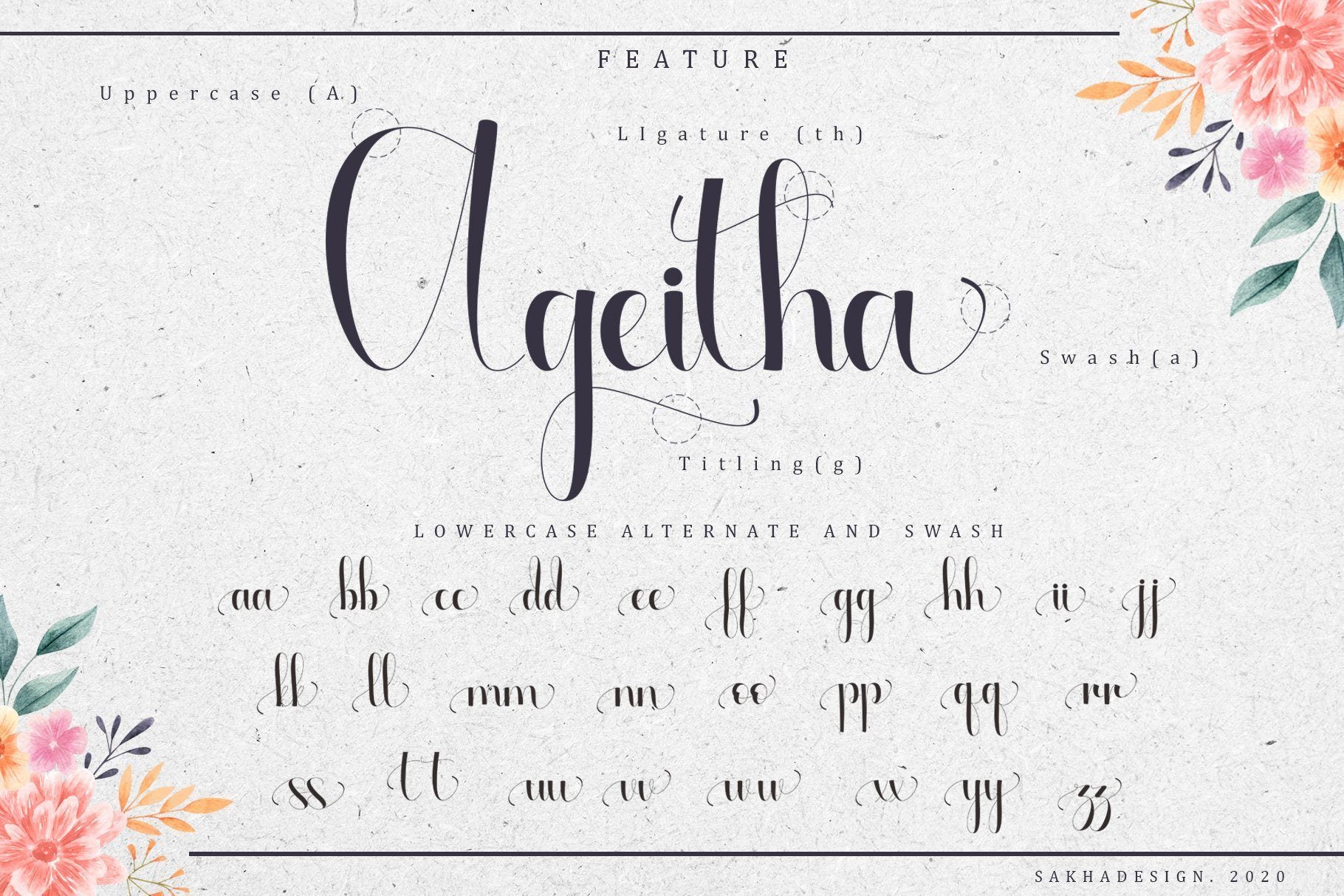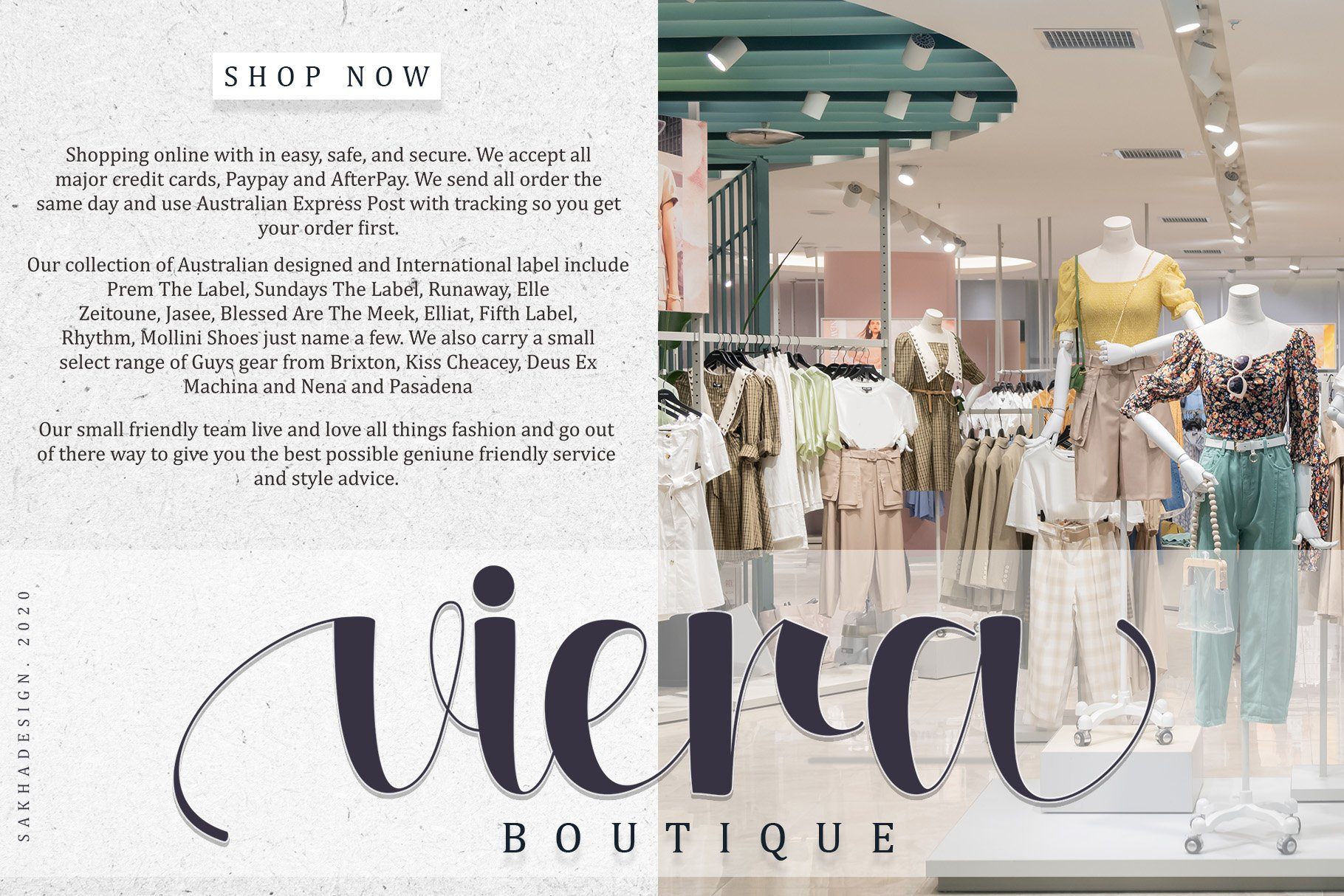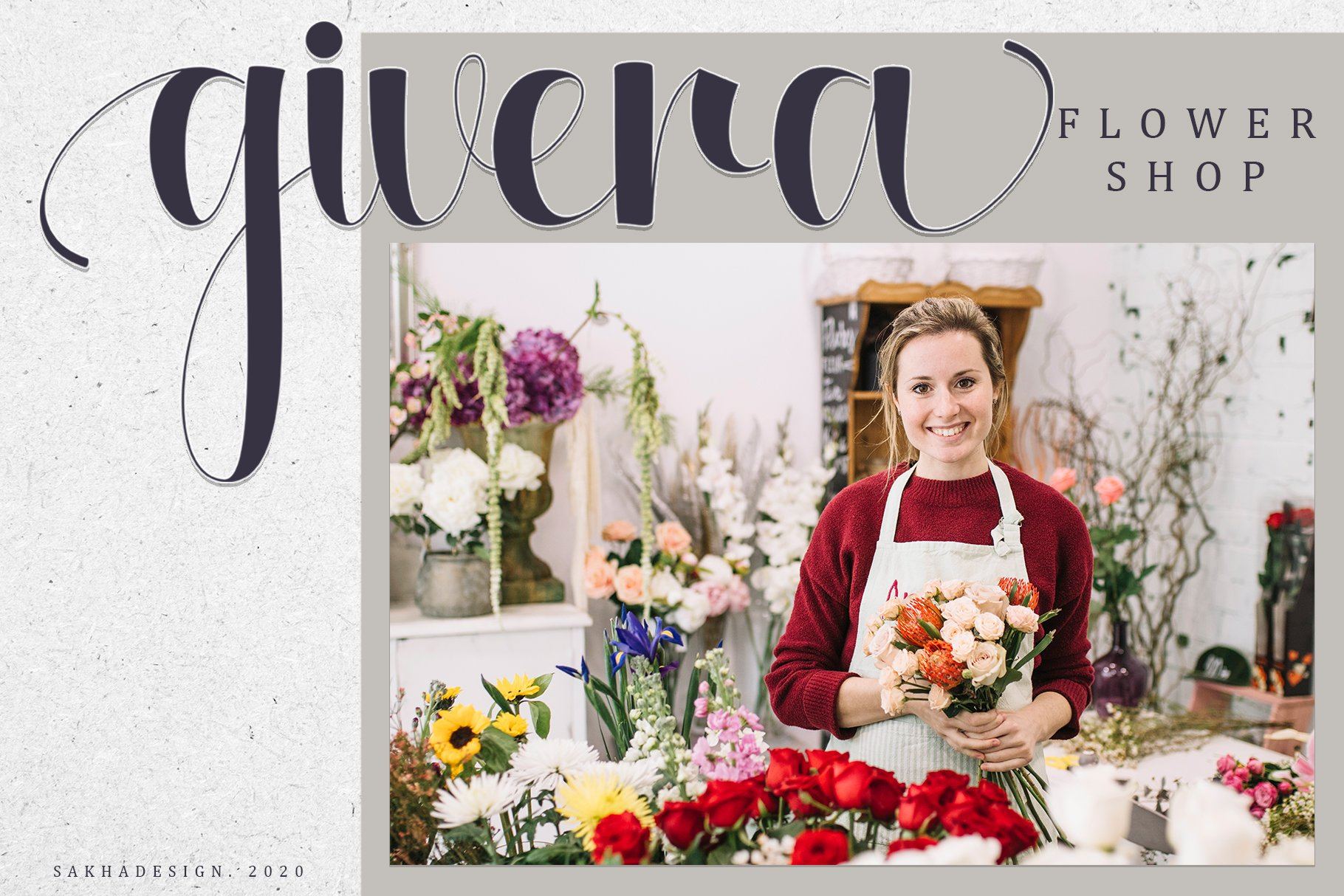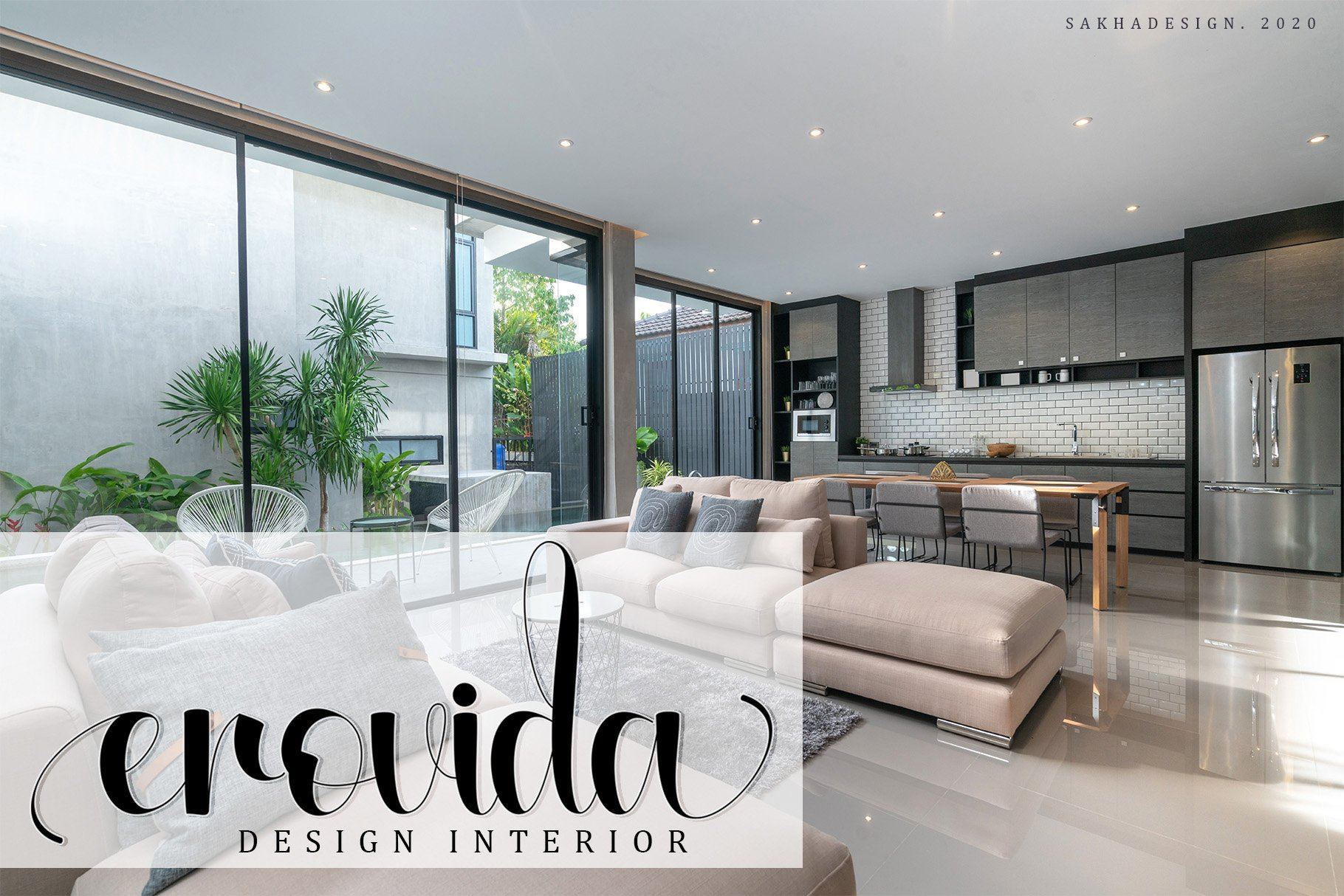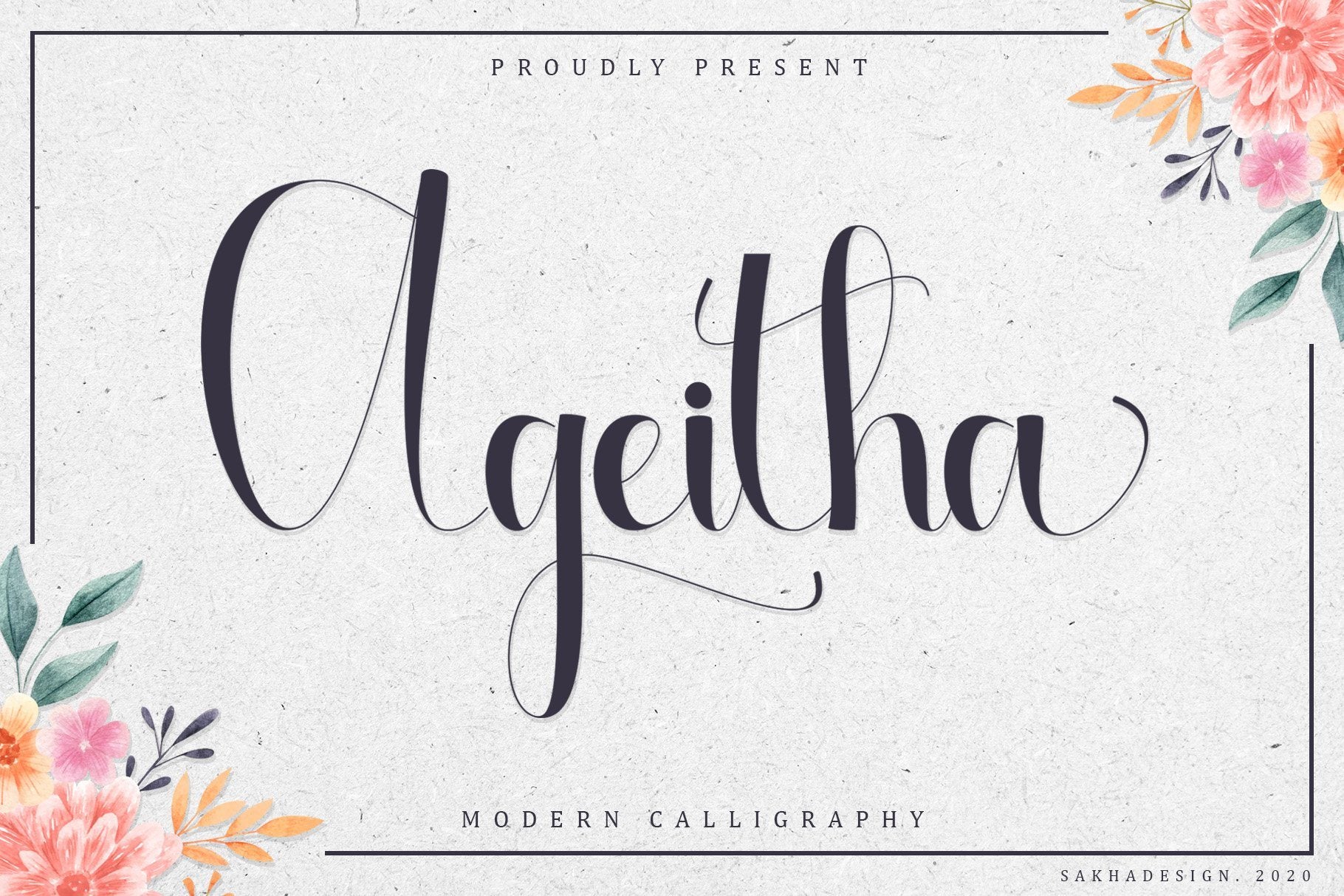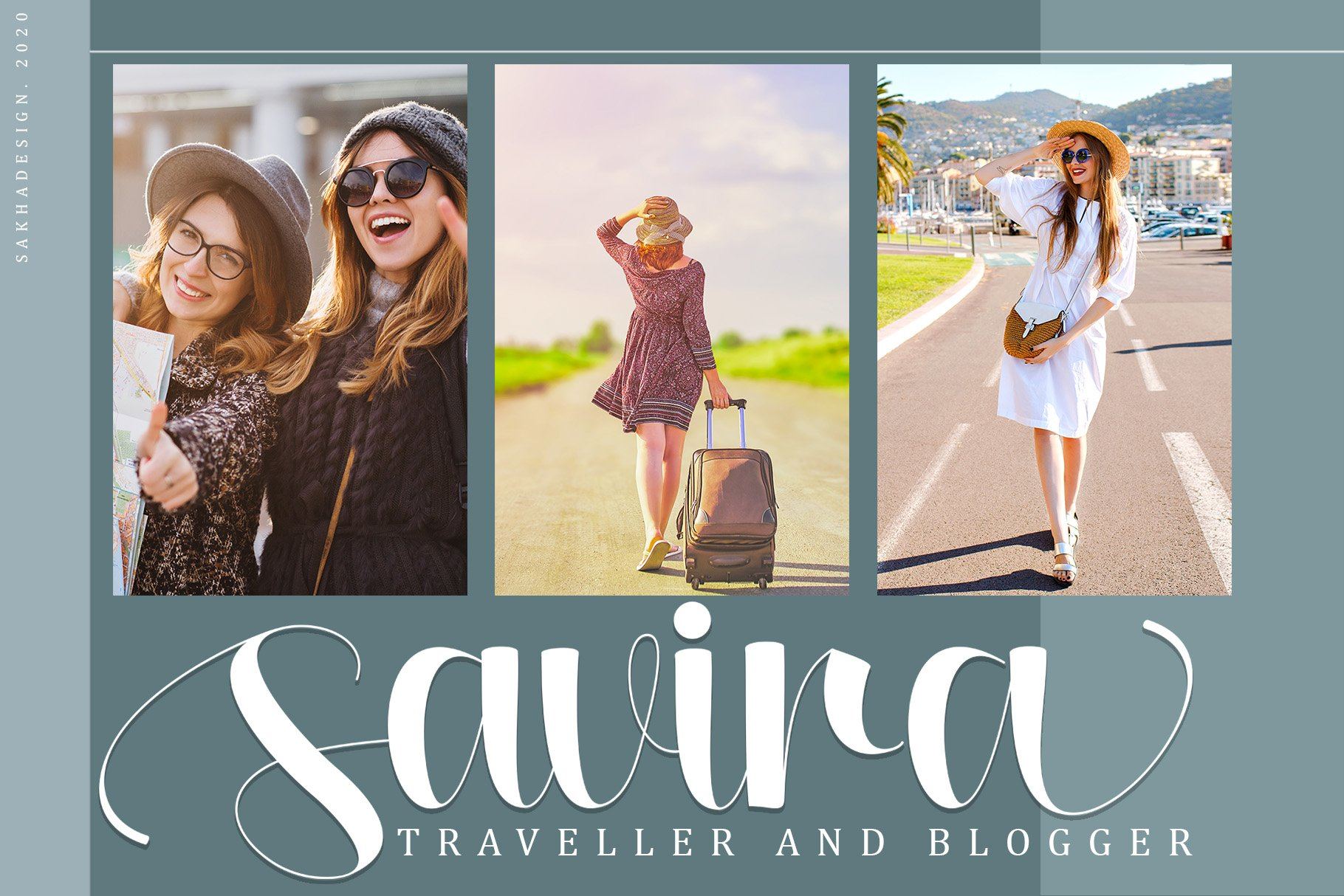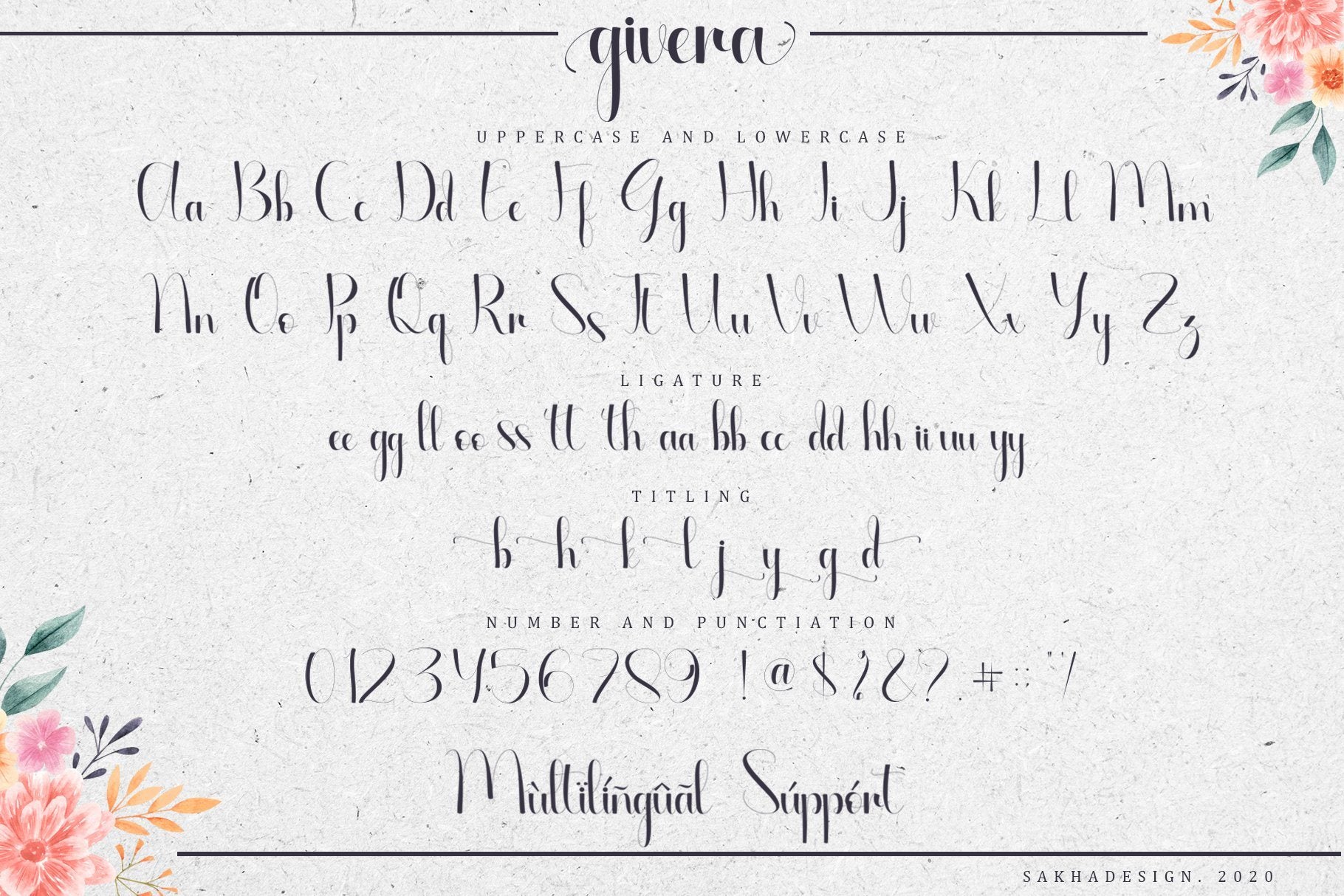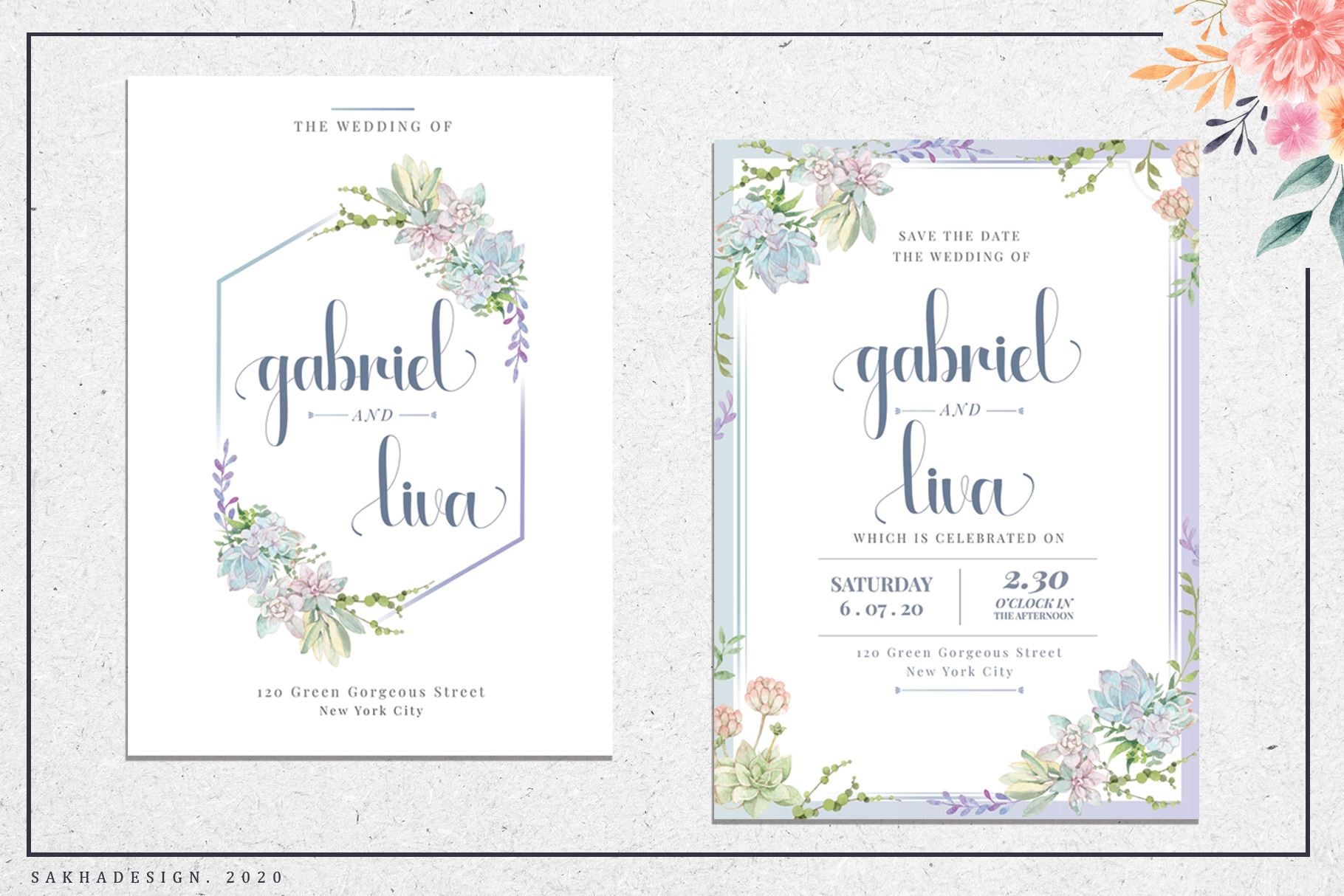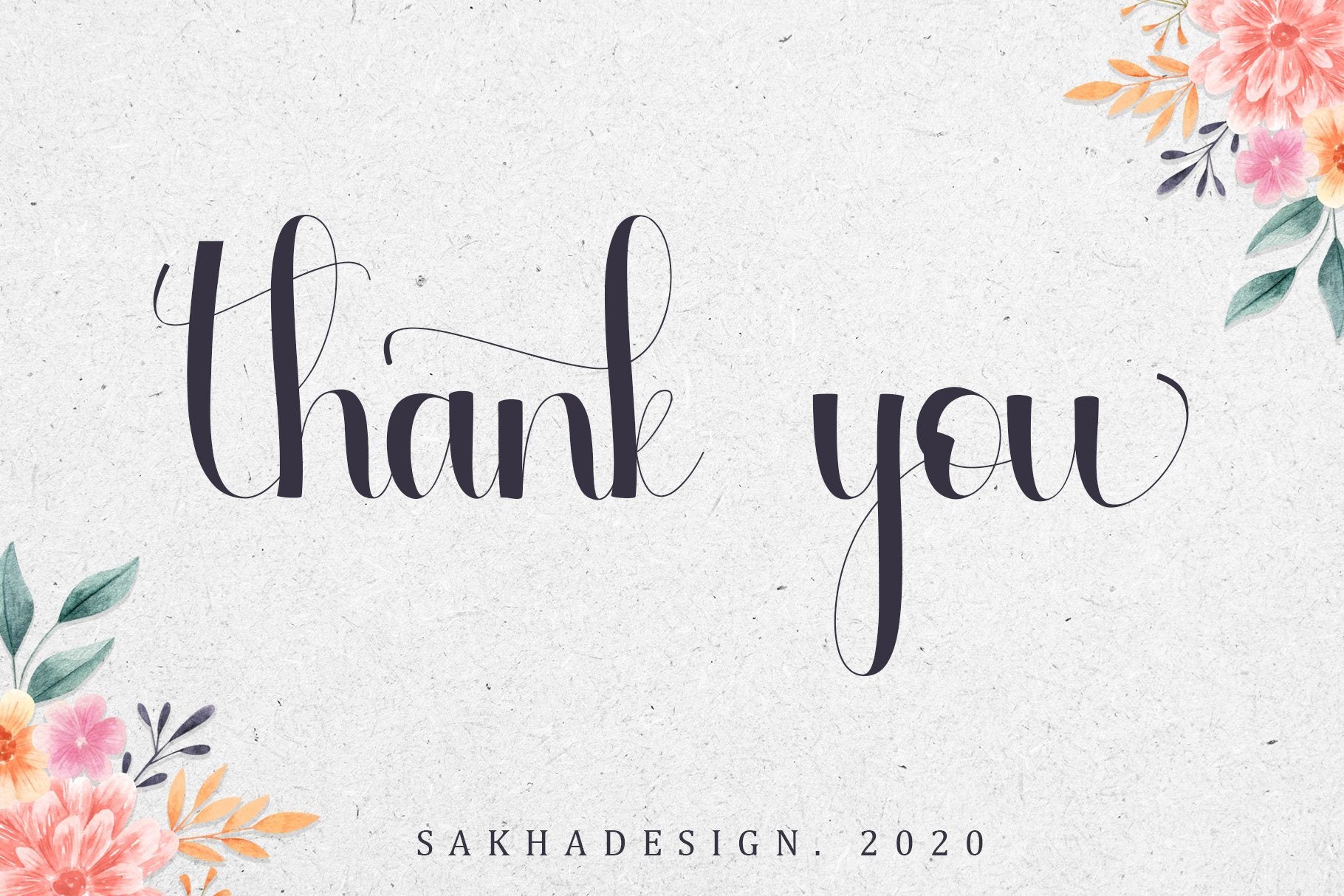
HomeScript FontsAgeitha Script Fonts Ageitha FacebookXPinterestWhatsApp 1 of 9 ... ... ... ... ... ... ... ... ... About Ageitha is a modern and luxurious handwritten font. Elegant and stylish, this font will become your top choice in no time. This font is PUA encoded which means you can access all of the glyphs and swashes with ease! DOWNLOAD NOW People also explored Snow Flakes Font Petchabury Font Valentines Font Cute Butterfly Black Torch Font Rdn Sans Font Talking Font Ramosaly Font Mighty Ducks Font 285 0 TagsAgeitha Previous articleThe BridgetaNext articleBaby live LEAVE A REPLY Cancel reply Comment: Please enter your comment! Name:* Please enter your name here Email:* You have entered an incorrect email address! Please enter your email address here Website: Save my name, email, and website in this browser for the next time I comment. Personal Use Free Angelitta Personal Use Free Read more about this font Valentines Day Personal Use Free Read more about this font Abberancy Personal Use Free Read more about this font Fifteenth Century Personal Use Free Read more about this font BLOG Free Fonts Risk: Why Free Fonts Can Be Dangerous for Designers Free Fonts Risk: Why Free Fonts Can Be Dangerous for Designers Using free fonts is a common practice in web and graphic design. However, the... Best Fonts for YouTube Videos: Make Your Thumbnails Stand Out Elegant Wedding Invitation Fonts – Handwritten & Script Fonts Exploring Font Trends